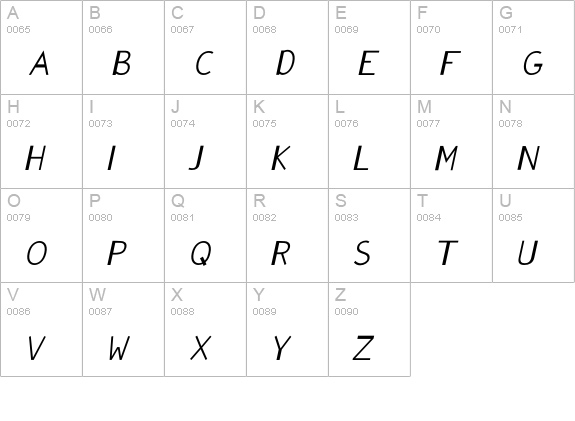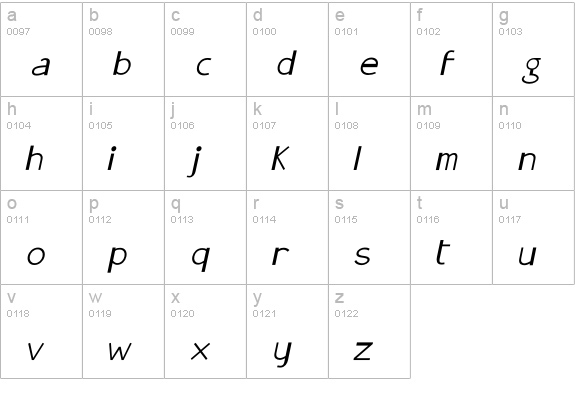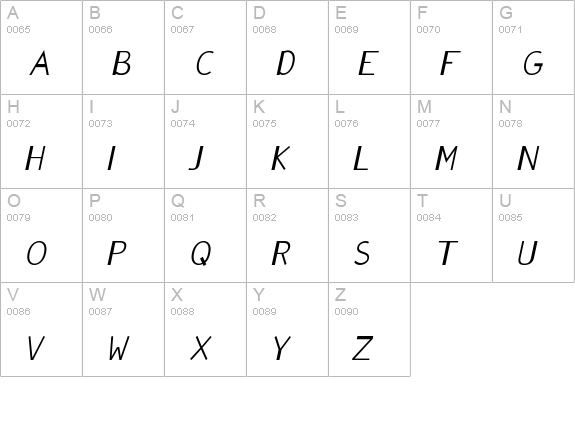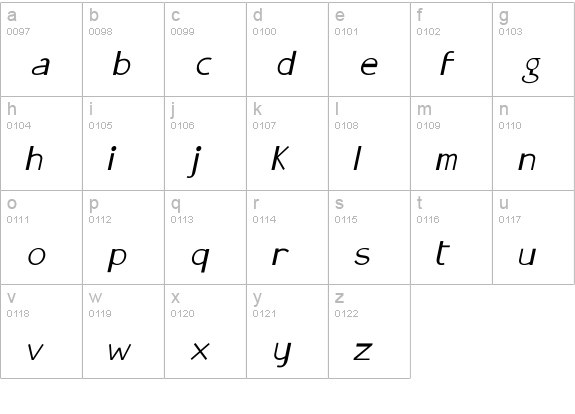
GonzaPlus-Oblique is a distinctive, italic variant in the GonzaPlus typeface family \xE2\x80\x94 well suited to design and typography projects.
GonzaPlus-Oblique is a modern and stylish font that exudes elegance and sophistication. Its sleek, slanted design adds a touch of flair to any project, making it perfect for logos, branding, and editorial design. The unique curves and angles of this font give it a distinct personality that is sure to make your text stand out. What sets GonzaPlus-Oblique apart is that it is not only visually striking, but also completely free to download. You can easily access this versatile font at FontsMarket.com, where it is available for anyone looking to add a touch of creativity to their designs without any cost. With GonzaPlus-Oblique, you can elevate your projects with a modern and eye-catching font that is both stylish and accessible.